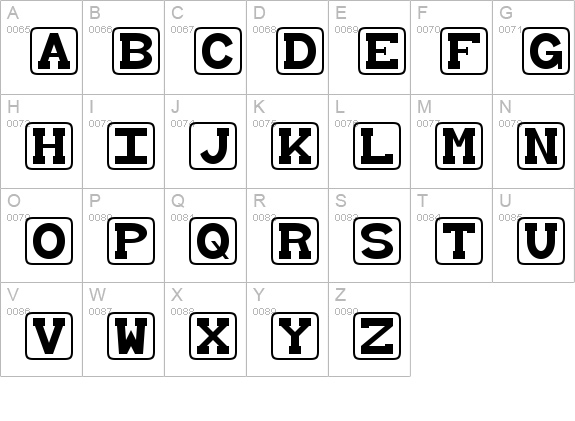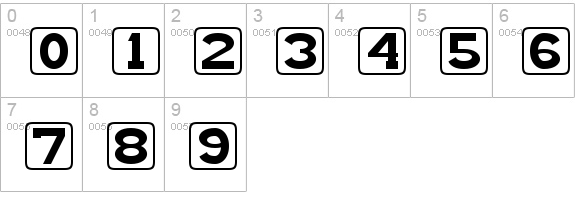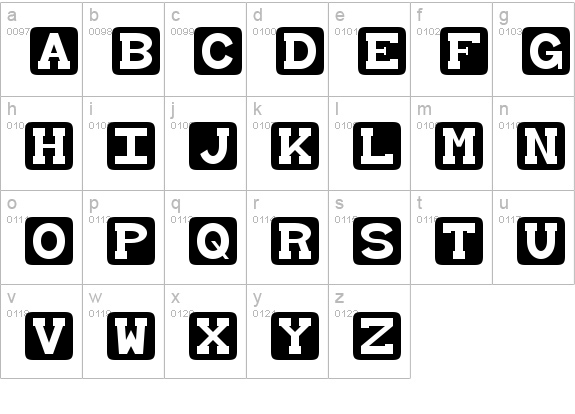
Baby Blocks Font Details
Introducing Baby Blocks font, a delightful and playful typeface that captures the essence of childhood innocence and joy. This charming font is perfect for adding a touch of whimsy to any project, whether it be designing baby shower invitations, creating adorable nursery wall art, or crafting personalized greetings for little ones. With its rounded edges and bubbly letters, Baby Blocks font exudes a sense of warmth and friendliness. Each letter is meticulously crafted to resemble cute and colorful building blocks, adding a sense of fun and creativity to your designs. Whether you're working on a child-themed project or simply want to infuse your designs with a sense of childlike wonder, this font is the perfect choice. What makes Baby Blocks font even more appealing is that it is free! Yes, you read that right - this charming typeface is freely available to download at FontsMarket.com. Now, you can bring a touch of whimsy to your designs without breaking the bank. So go ahead, let your imagination run wild and create enchanting designs that will captivate both children and adults alike. So why wait? Download Baby Blocks font today and unlock a world of endless possibilities. Whether you're a graphic designer, a parent, or someone who simply appreciates the beauty of childlike innocence, this font is sure to bring a smile to your face and add a sprinkle of magic to your designs. Don't miss out on this fantastic opportunity to enhance your projects with the charm and playfulness of Baby Blocks font. Get it now, for free, at FontsMarket.com.